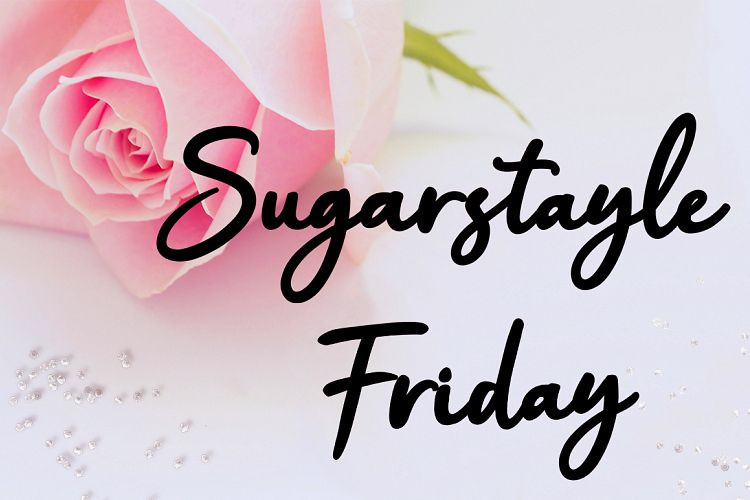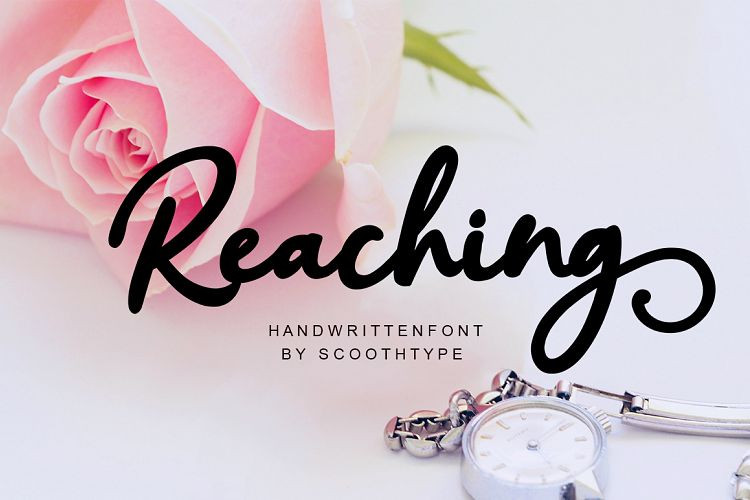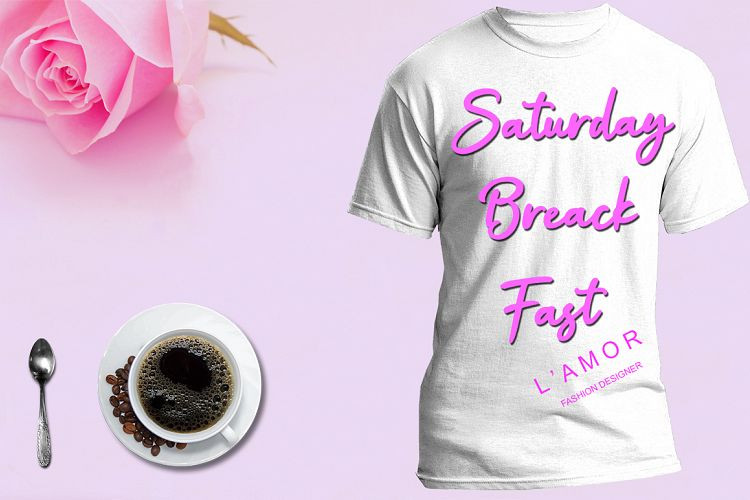
Reaching Font
Introducing Reaching Script is a modern handwritten font with handwritten suitable for invitations, brand projects, logos, greeting cards, news, product packaging, blog posters, everything including personal charms etc.This font replaces all lowercase letters, also comes with ligatures and unique and beautiful alternatives as well as international support for most western languages.